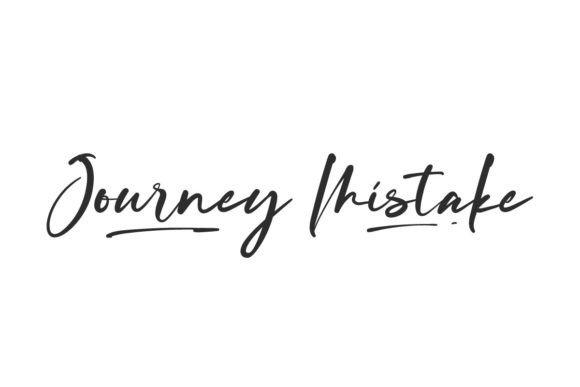
Dive into the world of sophistication and elegance with Journey Mistake Font, a mesmerizing handwritten font that captures the essence of classic ink artistry. This remarkable script font, crafted by the talented NihStudio, exudes a timeless charm that will elevate your designs to new heights.
Journey Mistake Font's unique brush-like texture adds an enchanting touch of irregularity, yet maintains exceptional readability, ensuring your messages shine through with clarity. Its versatility knows no bounds, making it the perfect choice for a diverse range of creative projects.
Picture this: a brochure adorned with Journey Mistake Font's graceful strokes, inviting readers to embark on a sensory journey. Or perhaps an invitation, its words dancing across the page, promising an unforgettable event. Unleash your creativity and transform labels, product packaging, and quotes into captivating expressions of art.
Let Journey Mistake Font's allure grace your stationery, adding a touch of personal charm to letters, cards, and notes. Design stickers that captivate with their intricate details and create titles that command attention, leaving a lasting impression. Watermarks, websites, and countless other digital creations will come alive with this font's timeless beauty.
With Journey Mistake Font as your creative companion, you hold the key to unlocking a world of design possibilities. Its classic ink look adds a touch of nostalgia, while its modern elegance ensures your designs stay relevant and captivating. Embrace this font's exceptional versatility and let your imagination soar.
Step into the realm of creative brilliance with Journey Mistake Font. Allow its enchanting strokes to guide you, transforming ordinary designs into extraordinary masterpieces. Experience the magic of this font and elevate your creations to new heights.